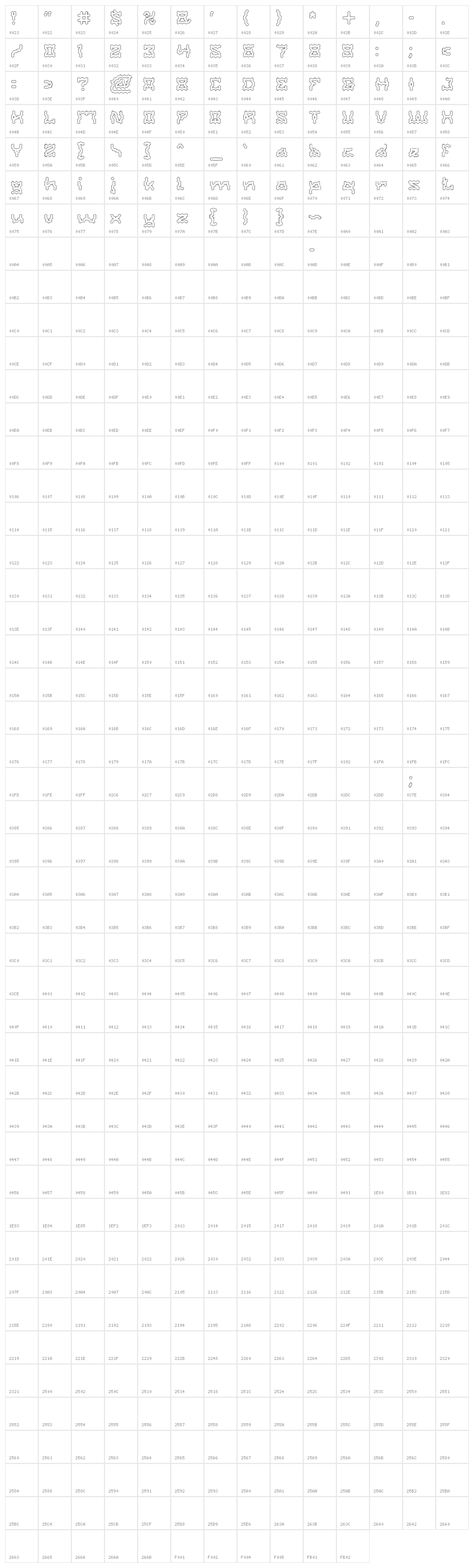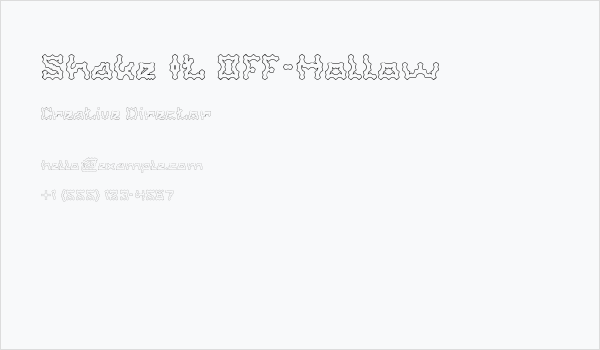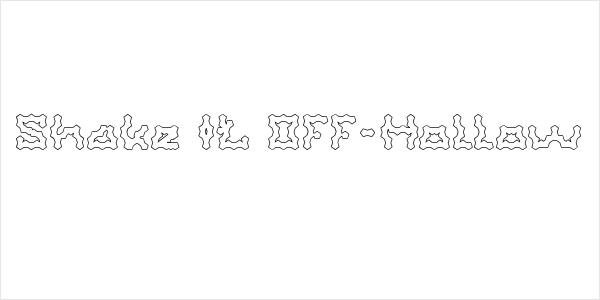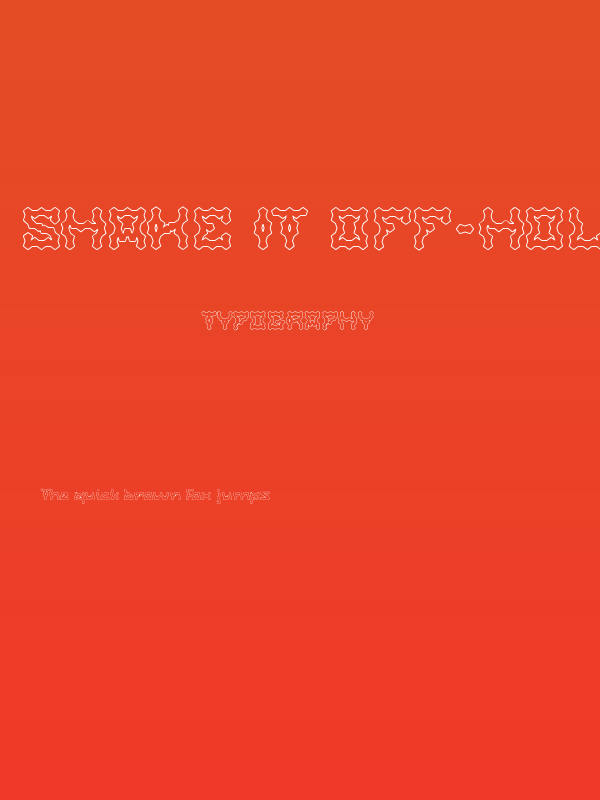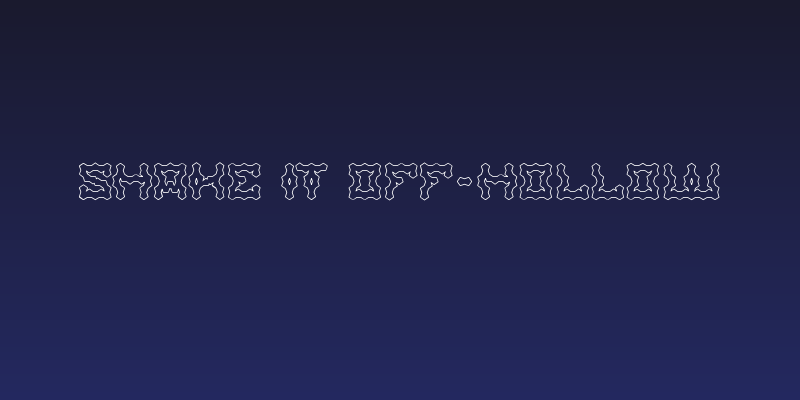
Shake It Off-Hollow Font
Shake It Off-Hollow Description
This font features a unique, wavy outline that gives each character a dynamic and playful appearance. The hollow design creates a sense of lightness and movement, making it stand out in any context. The uppercase and lowercase letters maintain a consistent style, with the wavy lines adding a touch of whimsy. Numbers and special characters follow the same design principles, ensuring a cohesive look across all text. This font is ideal for projects that require a fun and eye-catching aesthetic.
| Proposed Projects | Perfect for children's book covers, party invitations, playful branding, and creative posters. |